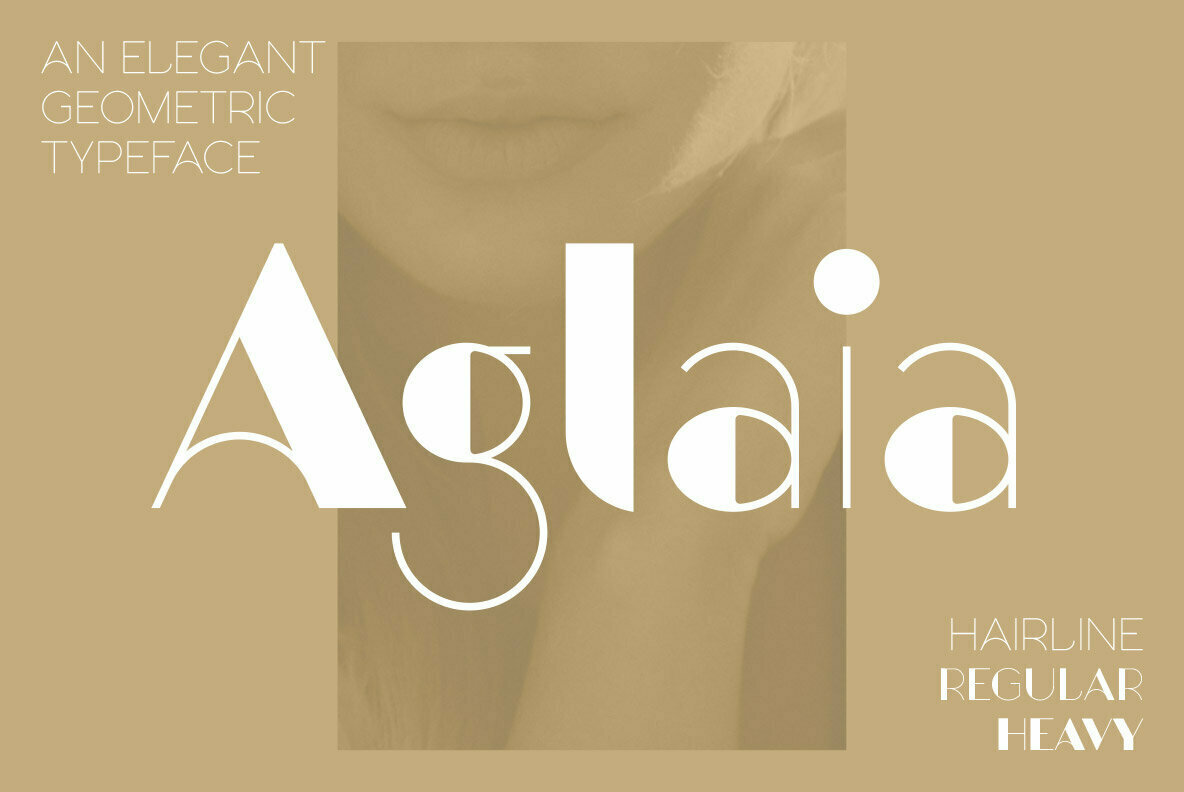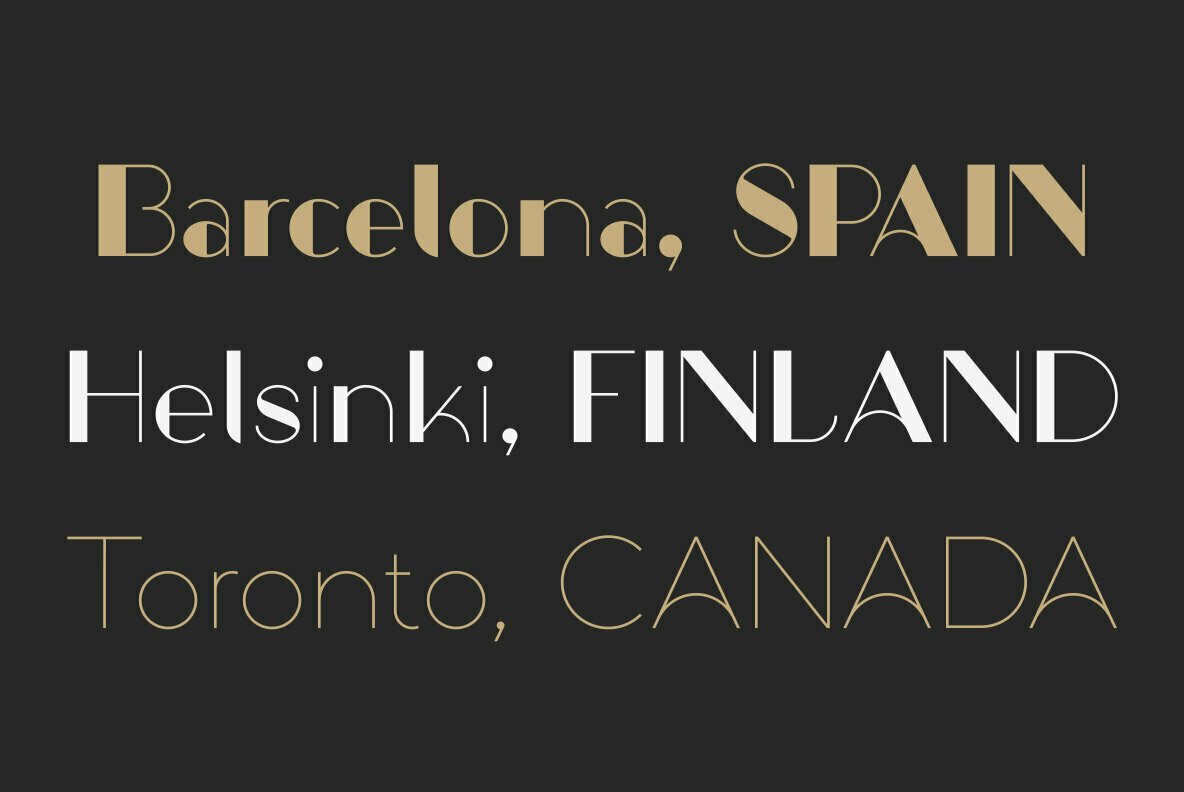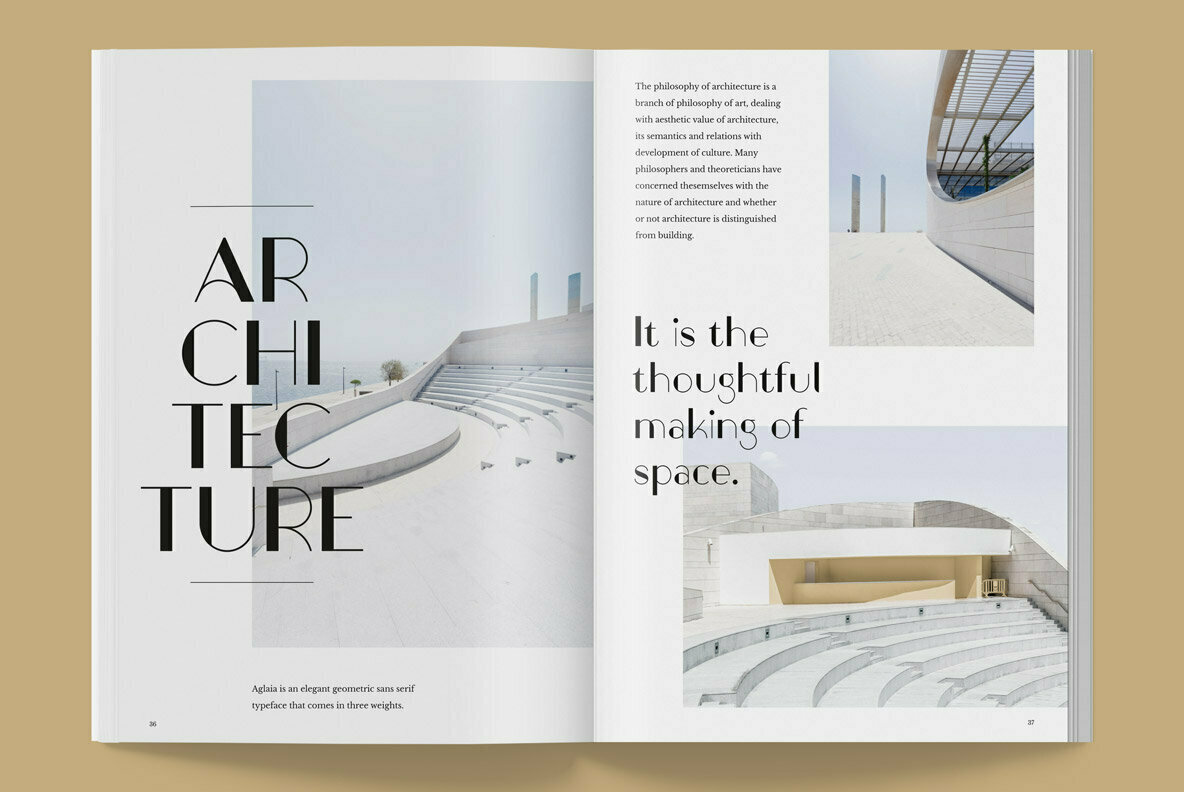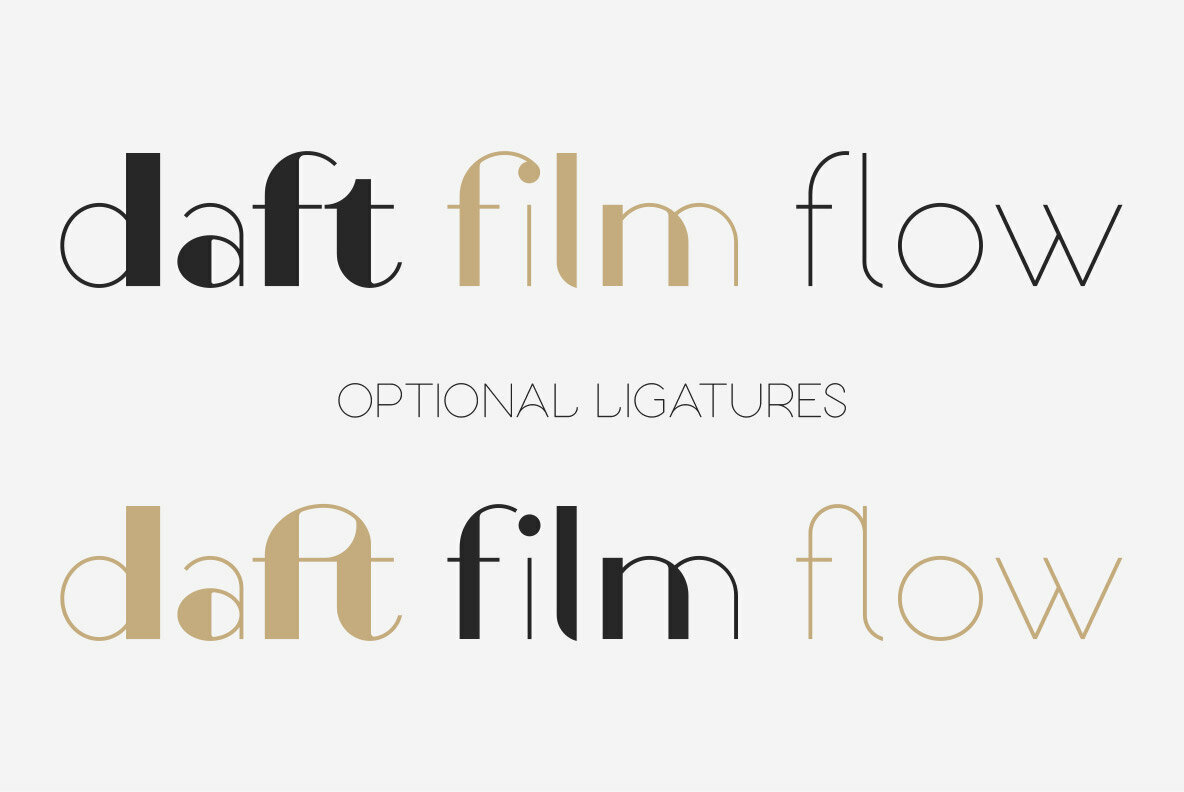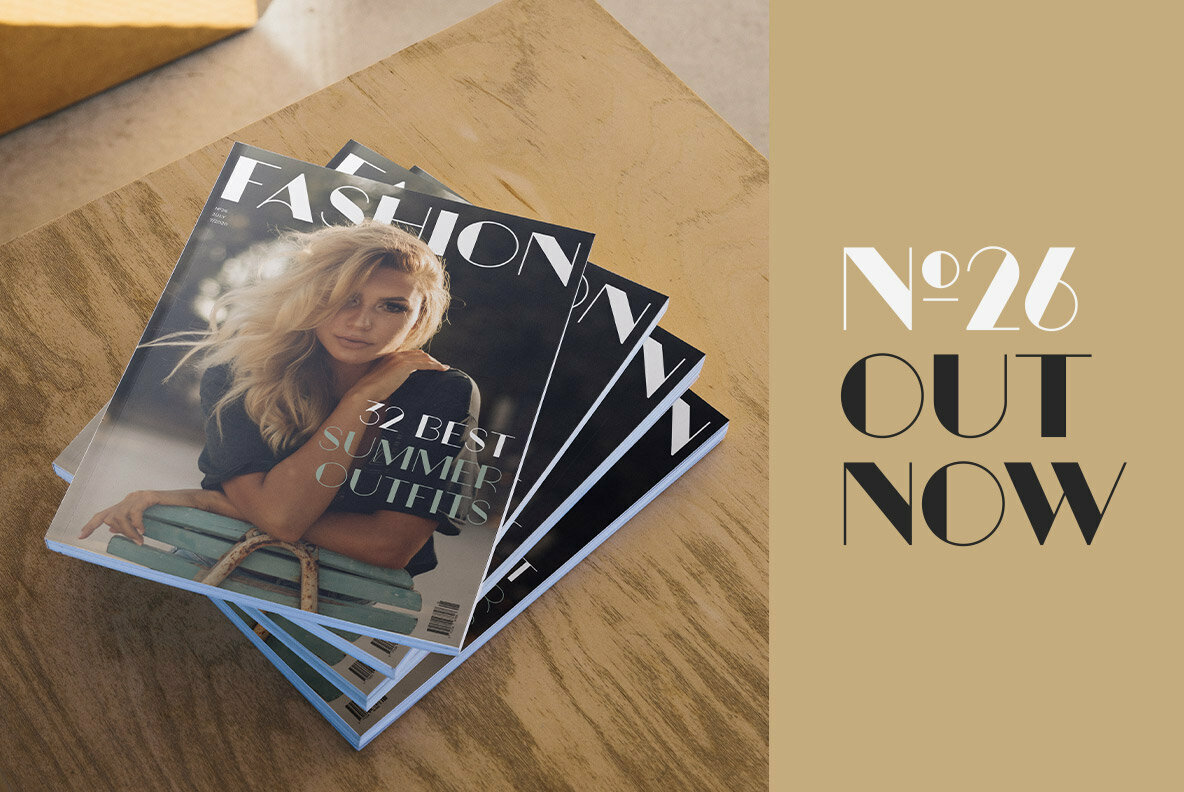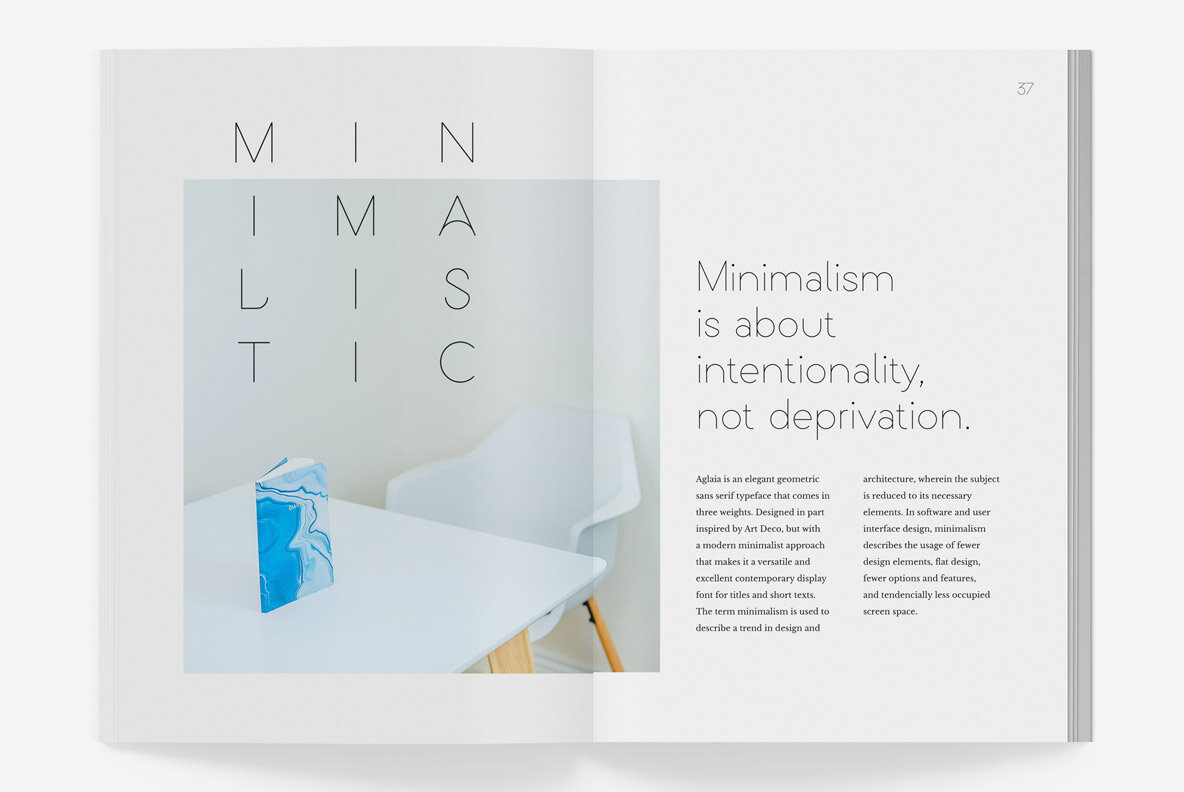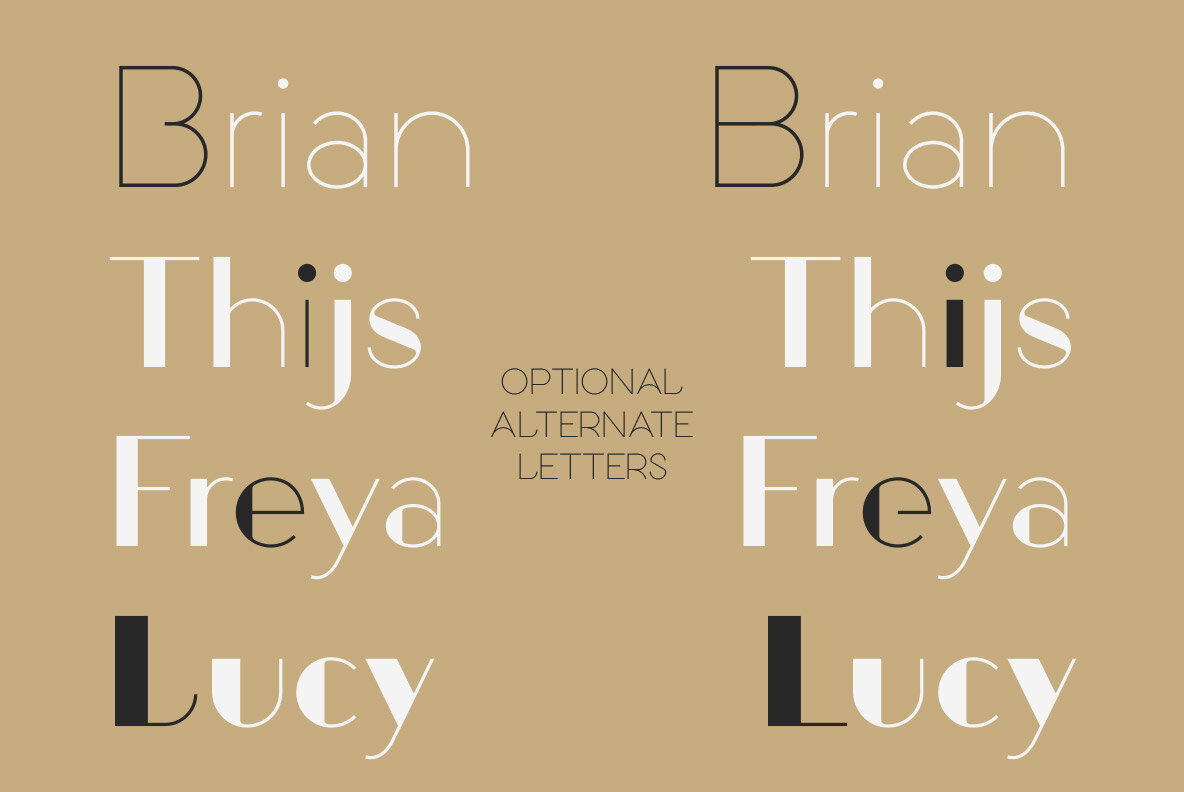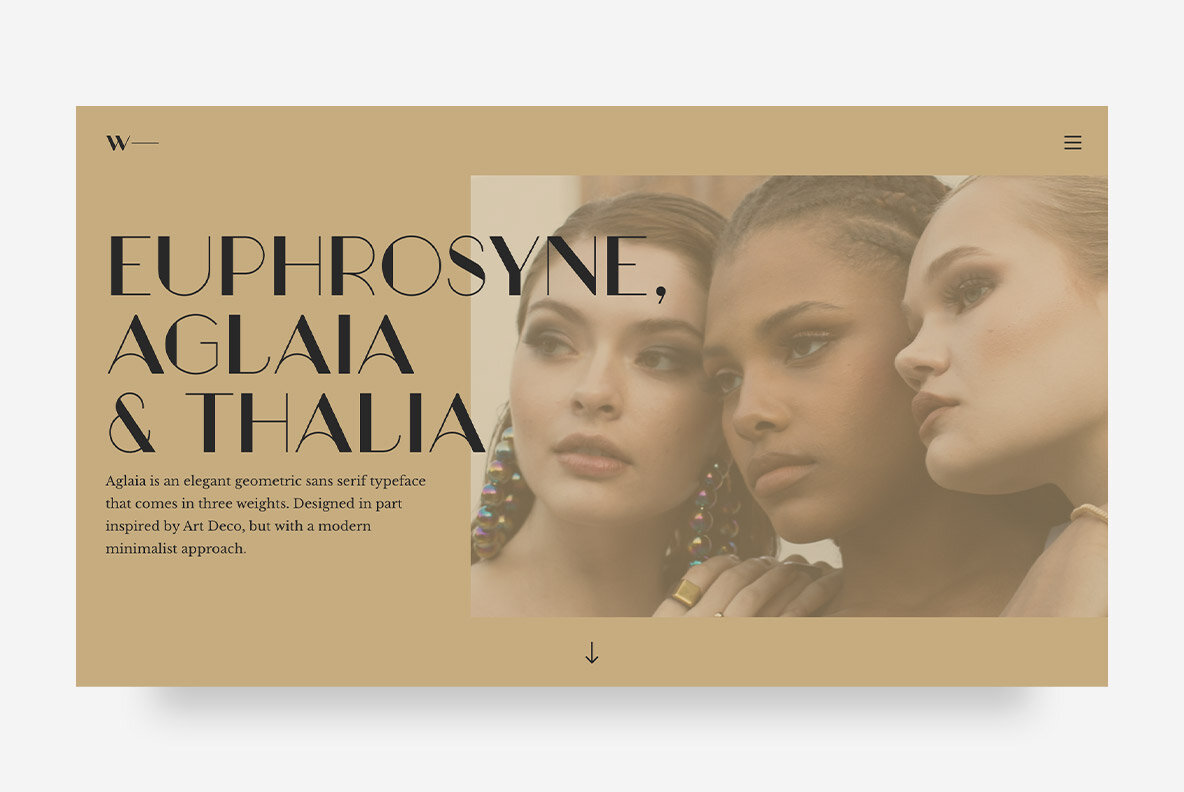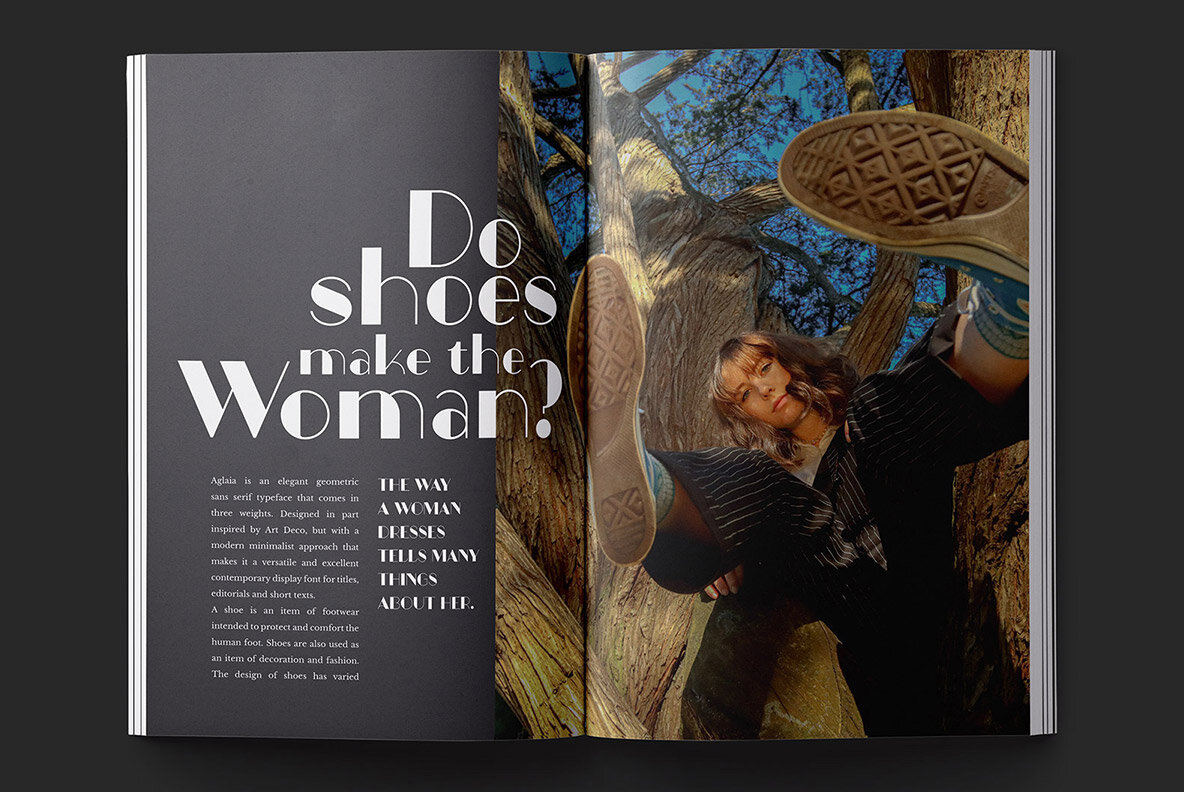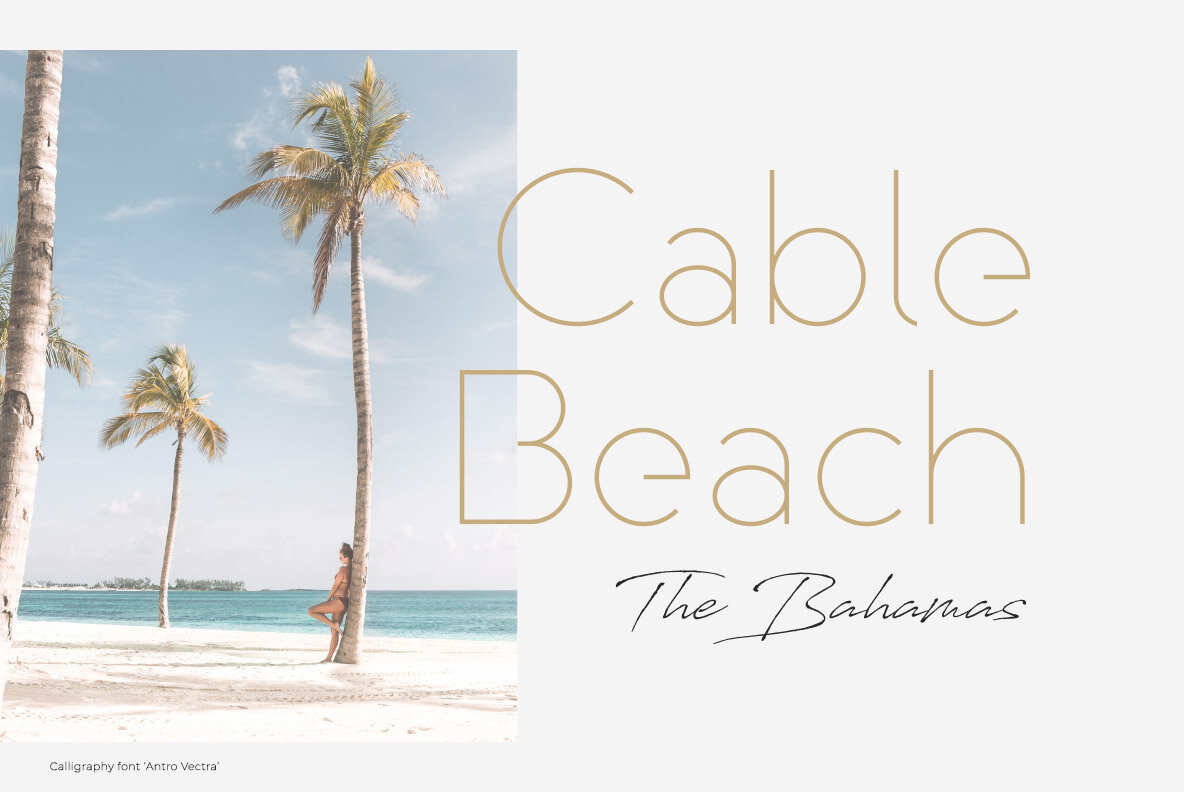
Aglaia
Aglaia HairlineAglaiaAglaia Heavy
Aglaia is an elegant geometric sans serif typeface that comes in three weights. Designed in part inspired by Art Deco, but with a modern minimalist approach that makes it a versatile and excellent contemporary display font for titles, editorials and short texts.